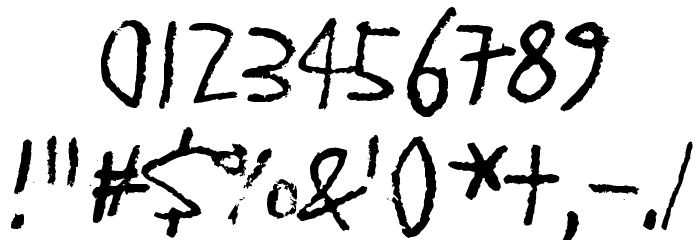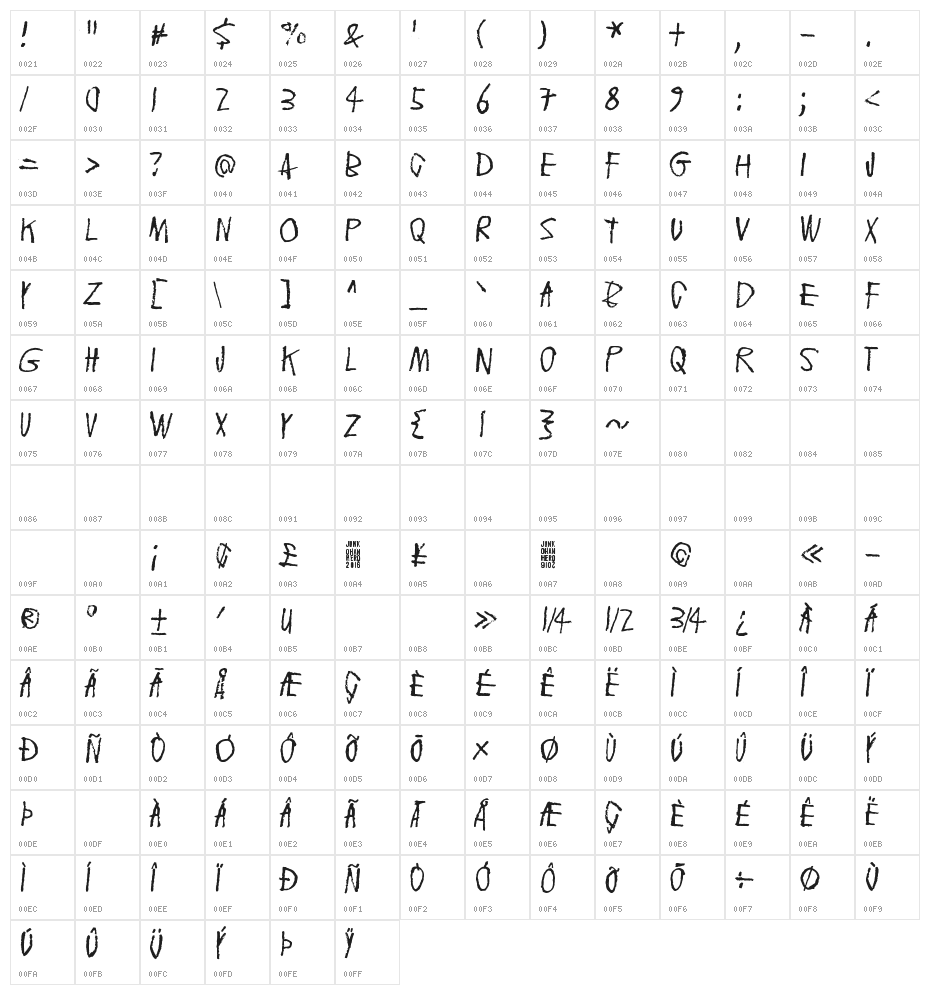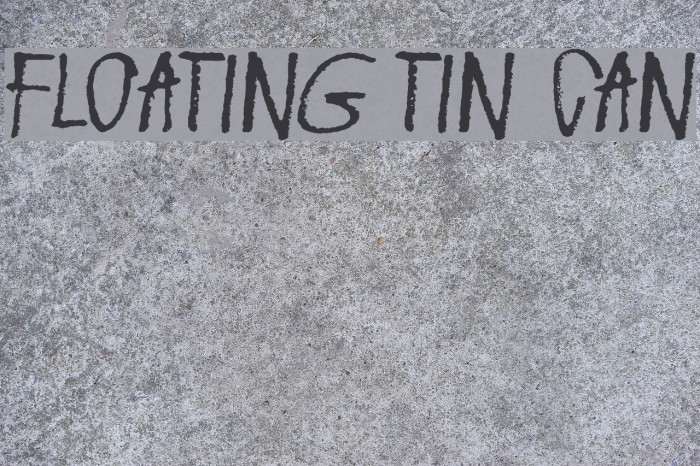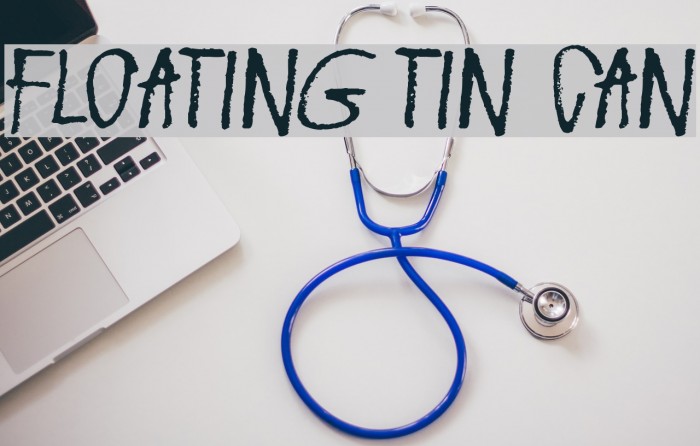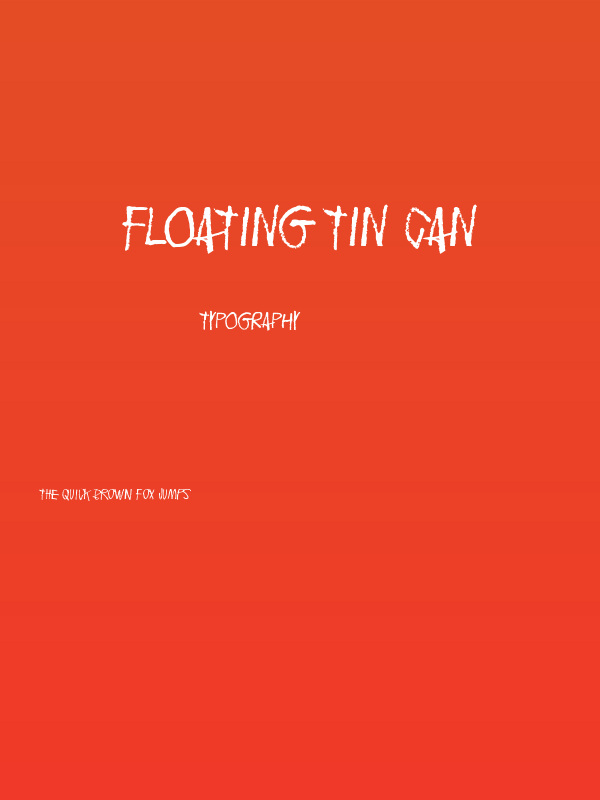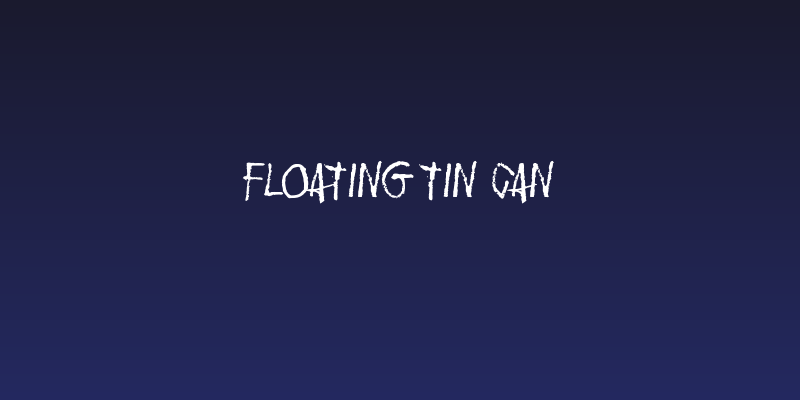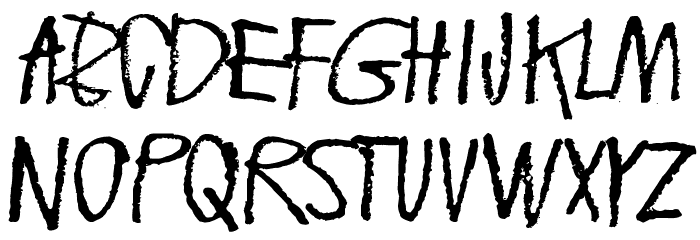
Floating tin can Font
Floating tin can Description
This font exhibits a raw, expressive style reminiscent of hand-drawn graffiti or chalkboard writing. The characters are irregular and dynamic, with a rough texture that gives them a sense of movement and energy. The strokes are uneven, with varying thickness that adds to the font's informal and spontaneous appearance. The uppercase and lowercase letters maintain a consistent style, while the numbers and special characters integrate seamlessly, enhancing the font's cohesive look. This font is ideal for projects that require a bold, artistic touch.
Use CaseLogos, Headlines, Artistic projects
Proposed ProjectsIdeal for street art designs, edgy posters, album covers, and creative branding projects.